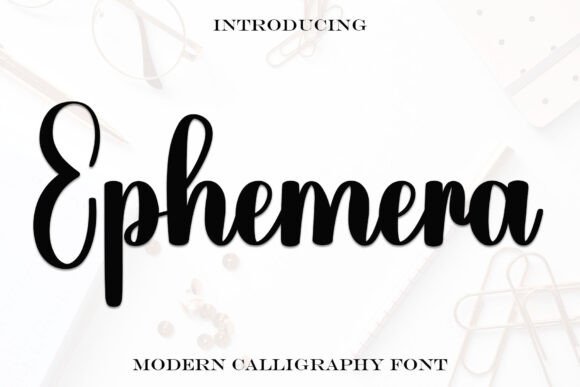
Introducing Ephemera Font: The Sweet and Elegant Cursive Handwritten Font
Are you looking for a font that can add a touch of elegance and romance to your designs? Look no further than Ephemera Font! This beautiful, cursive handwritten font is perfect for designers and crafters who want to create stunning visual content that exudes joy and sophistication. In this article, we’ll dive into the world of Ephemera Font and explore its features, uses, and benefits.
What is Ephemera Font?
Ephemera Font is a sweet and cursive handwritten font that is designed to add a touch of whimsy and romance to your designs. Its gentle curves and flowing lines make it perfect for creating beautiful, eye-catching visual content that stands out from the crowd. Whether you’re working on a branding project, designing a logo, or creating wedding materials, Ephemera Font is the perfect choice.
Features of Ephemera Font
So, what makes Ephemera Font so special? Here are just a few of its key features:
- Sweet and cursive design: Ephemera Font features a beautiful, cursive design that is both elegant and playful.
- Handwritten feel: This font has a warm, handwritten feel that makes it perfect for creating personal and inviting designs.
- Versatile: Ephemera Font can be used for a wide range of design projects, from branding and logos to wedding materials and greeting cards.
- Elegant and casual: This font strikes the perfect balance between elegance and casualness, making it perfect for designers who want to create sophisticated yet approachable designs.
Uses of Ephemera Font
So, what can you use Ephemera Font for? The possibilities are endless! Here are just a few ideas to get you started:
- Branding: Use Ephemera Font to create a beautiful and memorable brand identity that stands out from the crowd.
- Logos: This font is perfect for creating elegant and sophisticated logos that reflect your brand’s personality.
- Wedding materials: Ephemera Font is a popular choice for wedding designs, including invitations, programs, and place cards.
- Greeting cards: Add a touch of elegance and romance to your greeting cards with Ephemera Font.
- Fashion and lookbooks: This font is perfect for creating stylish and sophisticated fashion designs and lookbooks.
- Marketing promotions: Use Ephemera Font to create eye-catching marketing materials that grab attention and drive results.
Benefits of Using Ephemera Font
So, why should you choose Ephemera Font for your design projects? Here are just a few benefits of using this beautiful font:
- Unique and distinctive: Ephemera Font is a unique and distinctive font that will help your designs stand out from the crowd.
- Elegant and sophisticated: This font adds a touch of elegance and sophistication to any design, making it perfect for high-end brands and luxury products.
- Easy to read: Despite its elegant design, Ephemera Font is easy to read and understand, making it perfect for body text and captions.
- Flexible: This font can be used for a wide range of design projects, from print materials to digital content.
Tips for Using Ephemera Font
Here are a few tips for getting the most out of Ephemera Font:
- Use it sparingly: Ephemera Font is a beautiful font, but it can be overwhelming if used too much. Use it sparingly to add a touch of elegance and sophistication to your designs.
- Pair it with other fonts: Experiment with pairing Ephemera Font with other fonts to create a unique and interesting design.
- Adjust the size and color: Play around with the size and color of Ephemera Font to create a design that pops.
In conclusion, Ephemera Font is a beautiful and elegant cursive handwritten font that is perfect for designers and crafters who want to create stunning visual content. Its sweet design, versatile uses, and numerous benefits make it a popular choice for a wide range of design projects. Whether you’re working on a branding project, designing a logo, or creating wedding materials, Ephemera Font is the perfect choice. So why wait? Give Ephemera Font a try today and see the difference it can make in your designs!